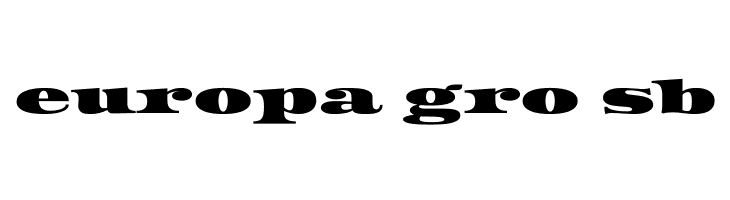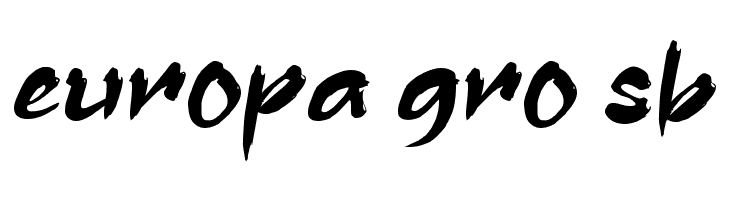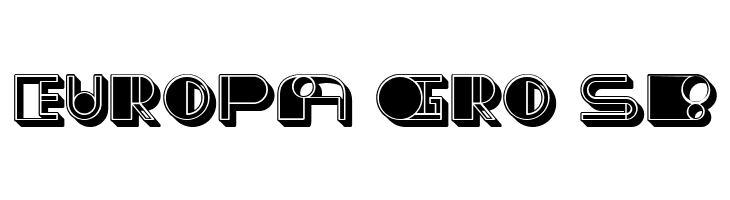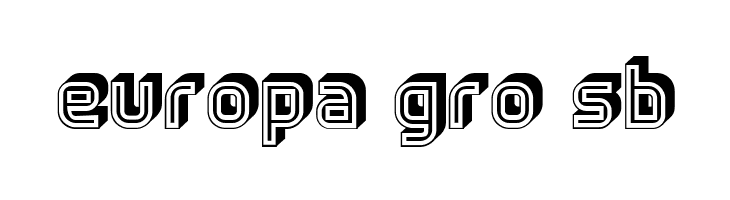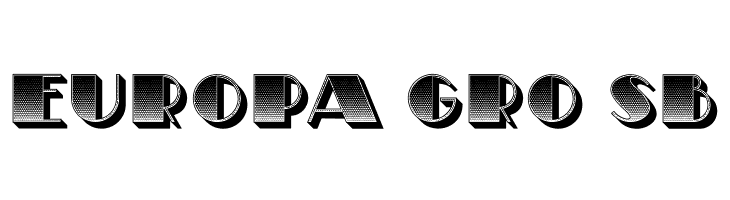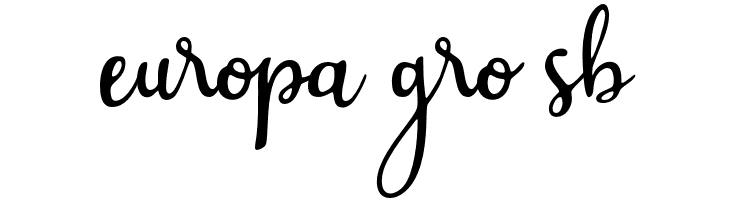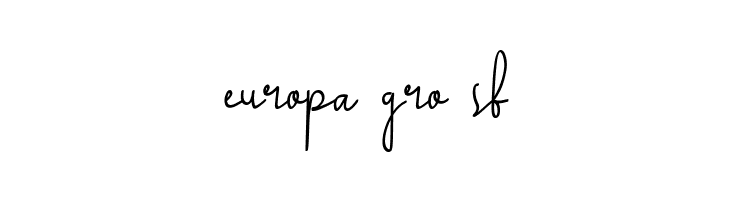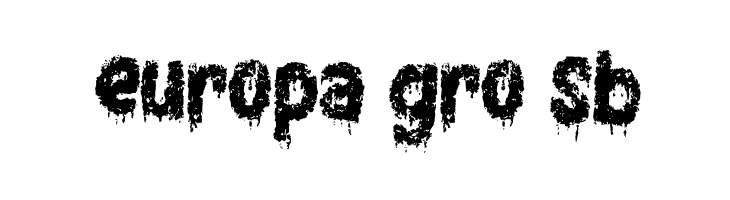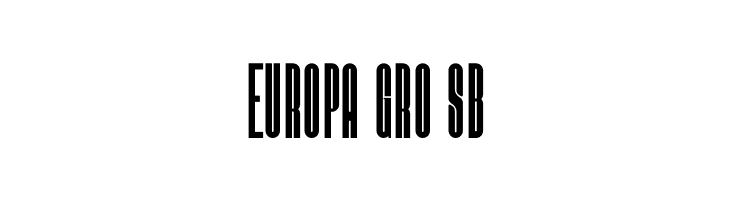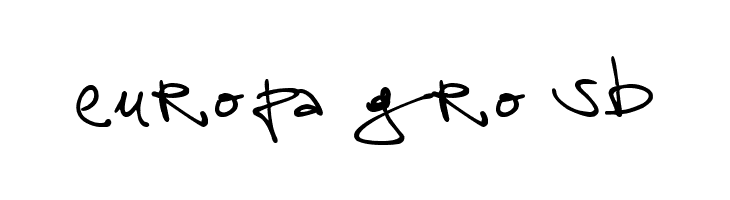
A bold, brush-style font with dynamic, expressive strokes.
A bold, textured font with a dripping, chaotic design.
A bold, three-dimensional font with a modern, geometric style.
A playful, elegant script font with a handwritten style.
A bold, narrow font with tall characters and a modern aesthetic.
A charming handwritten script font with fluid, cursive letterforms.
A bold, high-contrast serif font with dramatic strokes and pronounced serifs.
A bold, 3D font with shadow effects and a modern, geometric style.
A dynamic and expressive handwritten font with fluid, spontaneous strokes.
A bold, geometric font with angular shapes and outlined elements for a modern look.